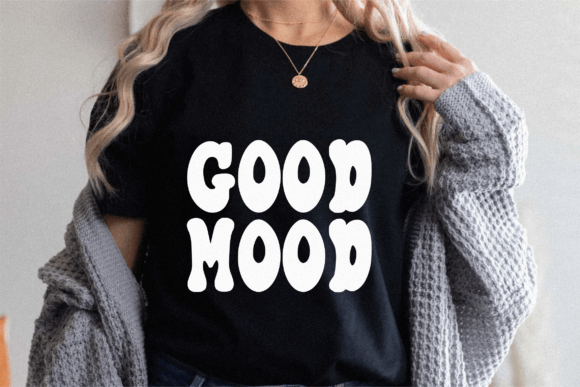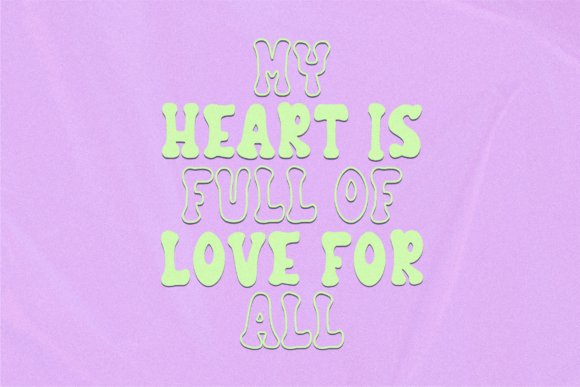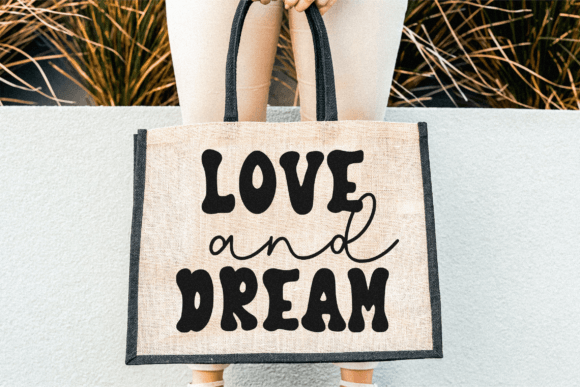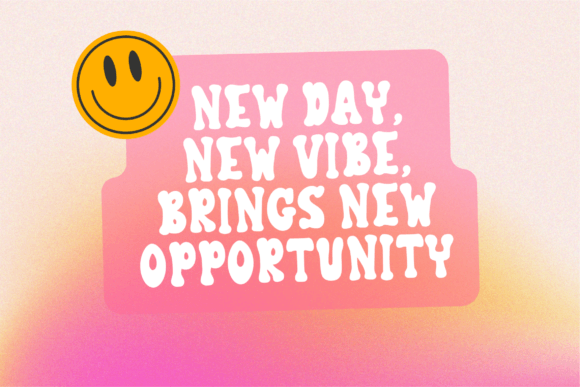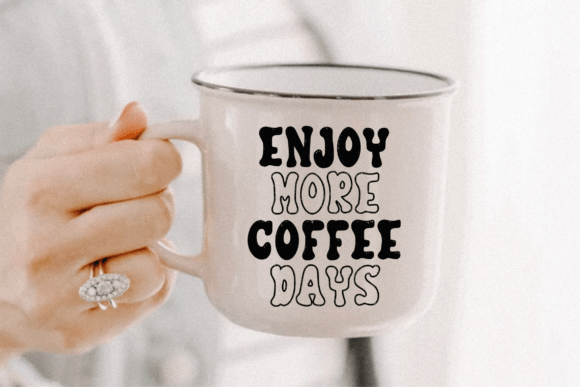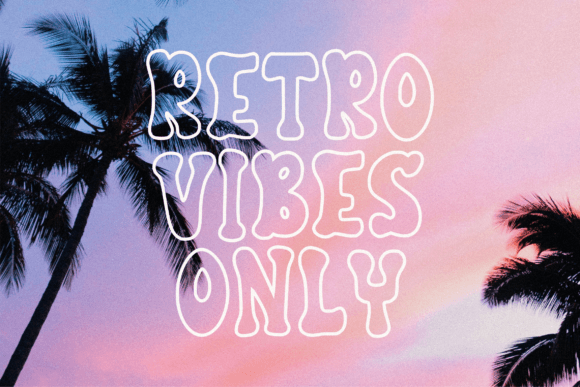
Introduction to Mango Groovy Font
Have you ever been working on a creative project and suddenly, the right font pops up in your mind, elevating your entire design? That’s exactly what happened to me when I stumbled upon the Mango Groovy Font. Its fun, retro-style display font made me envision a vibrant summer evening, where the sky is painted with hues of orange and pink.
As a designer, you know how crucial it is to have a reliable design resource that can add that extra oomph to your projects. The Mango Groovy Font is a high-quality, free download that can instantly transform your designs with its unique charm. Whether you’re working on a retro-themed website, a creative brochure, or a social media graphic, this font is sure to make your project stand out.
One of the best things about the Mango Groovy Font is its transparent background, making it easy to integrate with any design. Its versatility and ease of use make it a valuable addition to any designer’s toolkit. In this article, we’ll delve deeper into the world of Mango Groovy Font and explore its features, uses, and why it’s a must-have for any creative project.
Key Features of Mango Groovy Font
- Perfect for designers seeking a fun and playful font to add a touch of personality to their creative projects.
Honest Review: Mango Groovy Font
I recently came across the Mango Groovy Font, and I’m excited to share my honest thoughts about this design resource. As a designer, I’m always on the lookout for high-quality fonts that can elevate my creative projects.
One of the standout features of the Mango Groovy Font is its free download, making it an accessible design resource for designers of all levels. The font is also available with a transparent background, which is a great option for designers who want to create custom designs.
- High-quality design: The font is well-designed and looks great in a variety of contexts.
- Transparent background: This feature is perfect for designers who want to create custom designs.
- Limited character set: The font only includes a limited character set, which may not be suitable for all design projects.
- No variations: The font doesn’t come with any variations, which may limit its use in certain design contexts.
Overall, I’m impressed with the Mango Groovy Font and think it’s a great addition to any designer’s toolkit. While it has some limitations, its high-quality design and free download make it a great option for designers of all levels.
Tips and Use Cases
For the most out of the Mango Groovy Font, use it for:
- Food and drink branding
- Travel and adventure graphics
- Music and entertainment promotions
Remember to adjust the font size and color to fit your design needs.